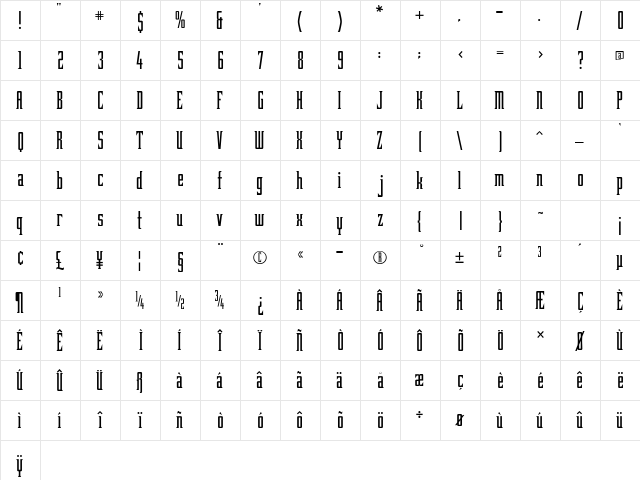
BonaireSSK Regular
Design Context for BonaireSSK Typeface
BonaireSSK takes a measured approach to typography — its balanced proportions and neutral character make it a reliable workhorse for both digital and print work.